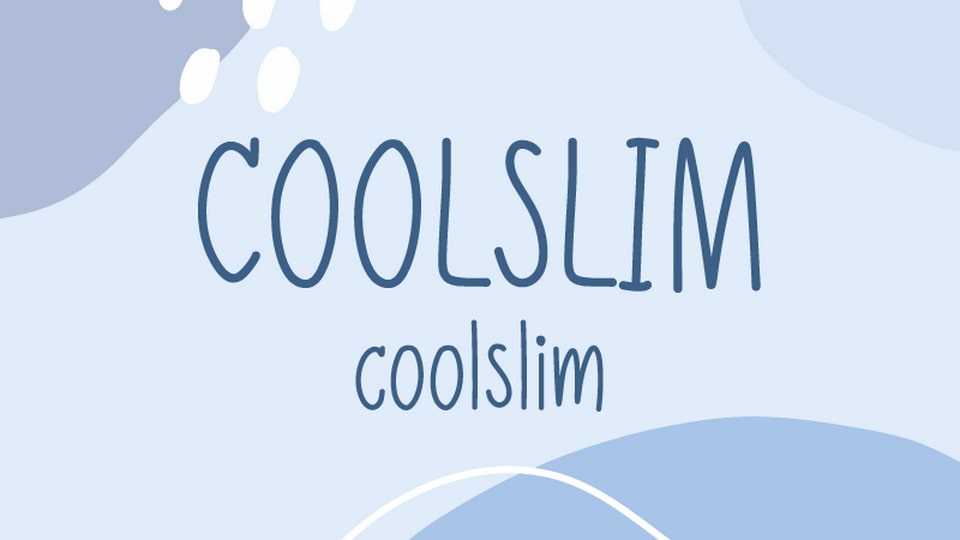
Download Coolslim font, a tall and slim hand-drawn comic typeface that combines playful energy with a sleek and modern look. Coolslim font features elongated lines and whimsical strokes, creating a fun and expressive typographic experience that feels both light and dynamic.